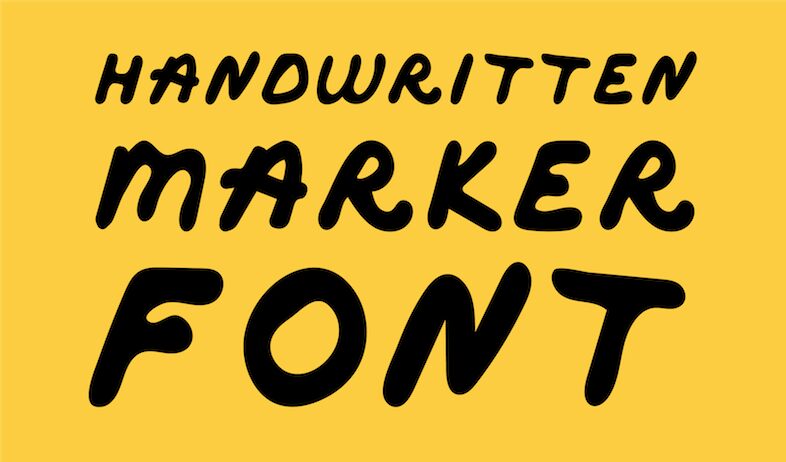
Marker Bold
Marker Bold is a robust, handwritten font that radiates an energetic, expressive flair. Penned with bold, defined strokes, this font exudes a dynamic, artisanal quality that lends itself well to a diverse range of design applications. From vibrant branding and packaging to captivating editorial layouts, Marker Bold's unique character adds a striking, eye-catching element that commands attention. Its assertive, brushstroke-inspired forms convey a sense of spontaneity and authenticity, making it an excellent choice for designs seeking to evoke a handcrafted, artisanal aesthetic.
Marker Bold's versatility and distinctive style position it as a versatile tool for designers seeking to inject their work with a bold, memorable impression.
The font features a versatile and distinctive style, with each character having a unique and authentic handwritten appearance. This gives your designs a handmade feel, adding depth and character to your final product. artist, or just someone who wants to add a personal touch to their creations, this handwritten marker font is a great resource to have in your toolkit. Download it today and start creating!